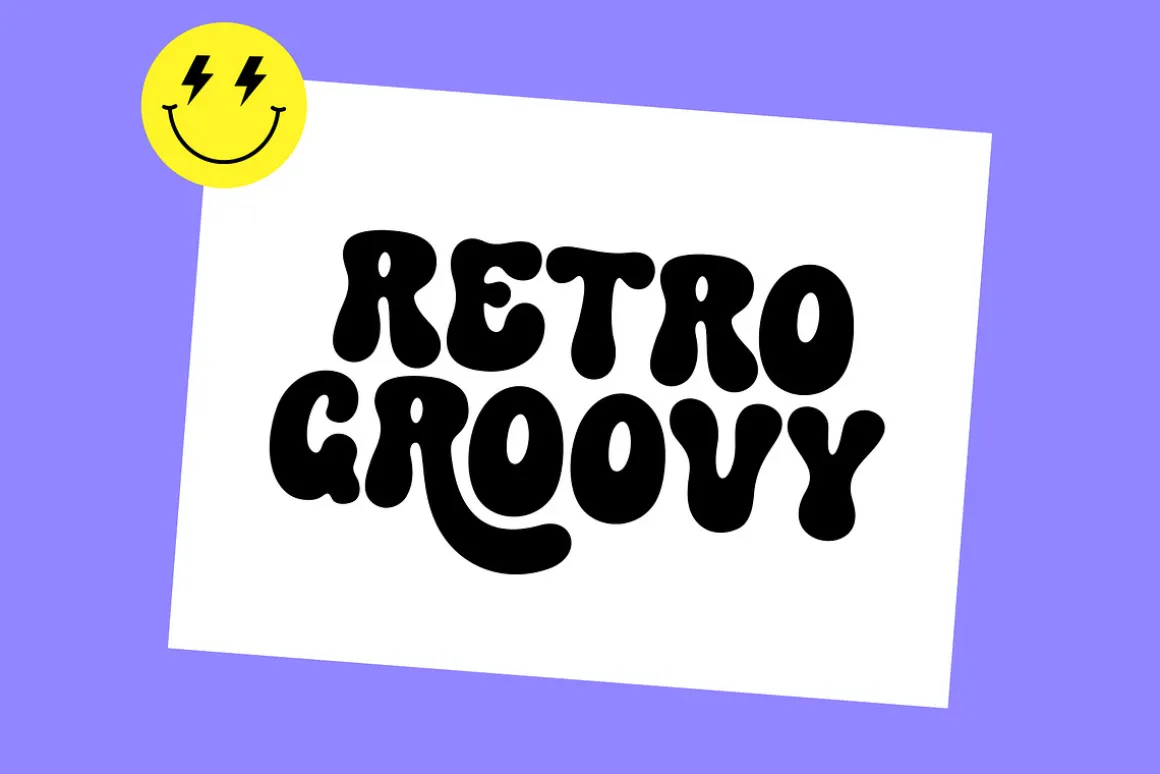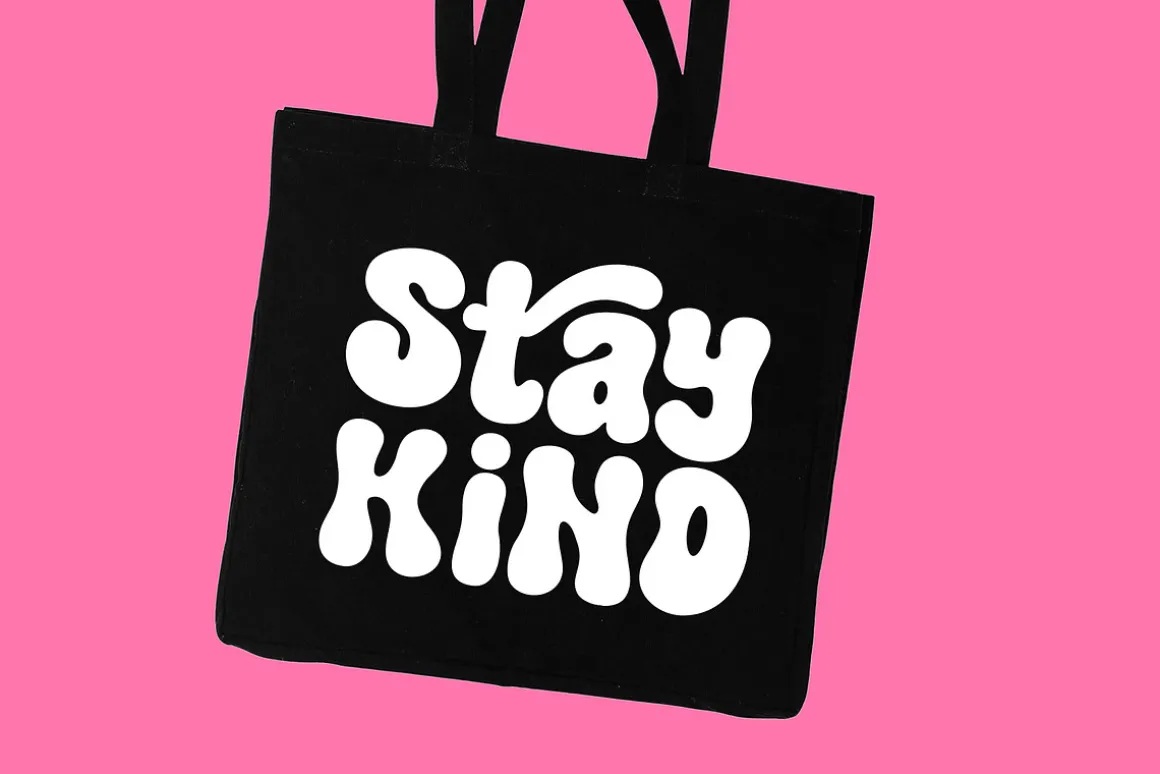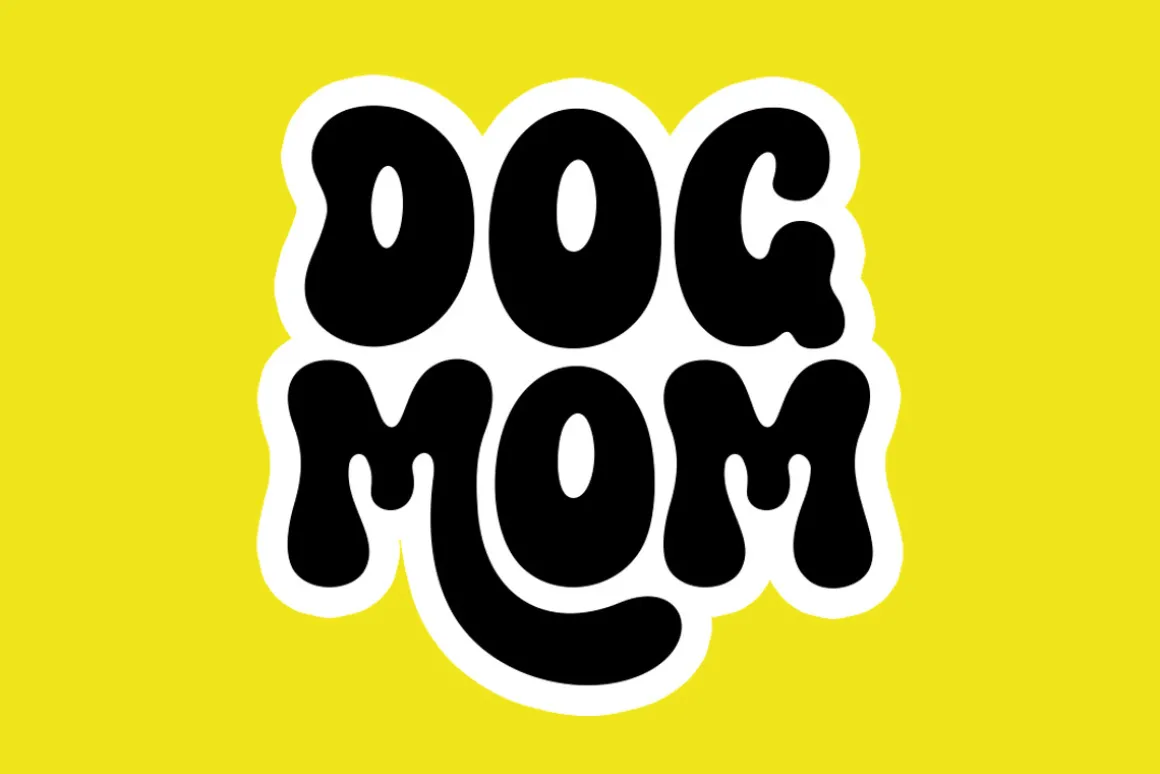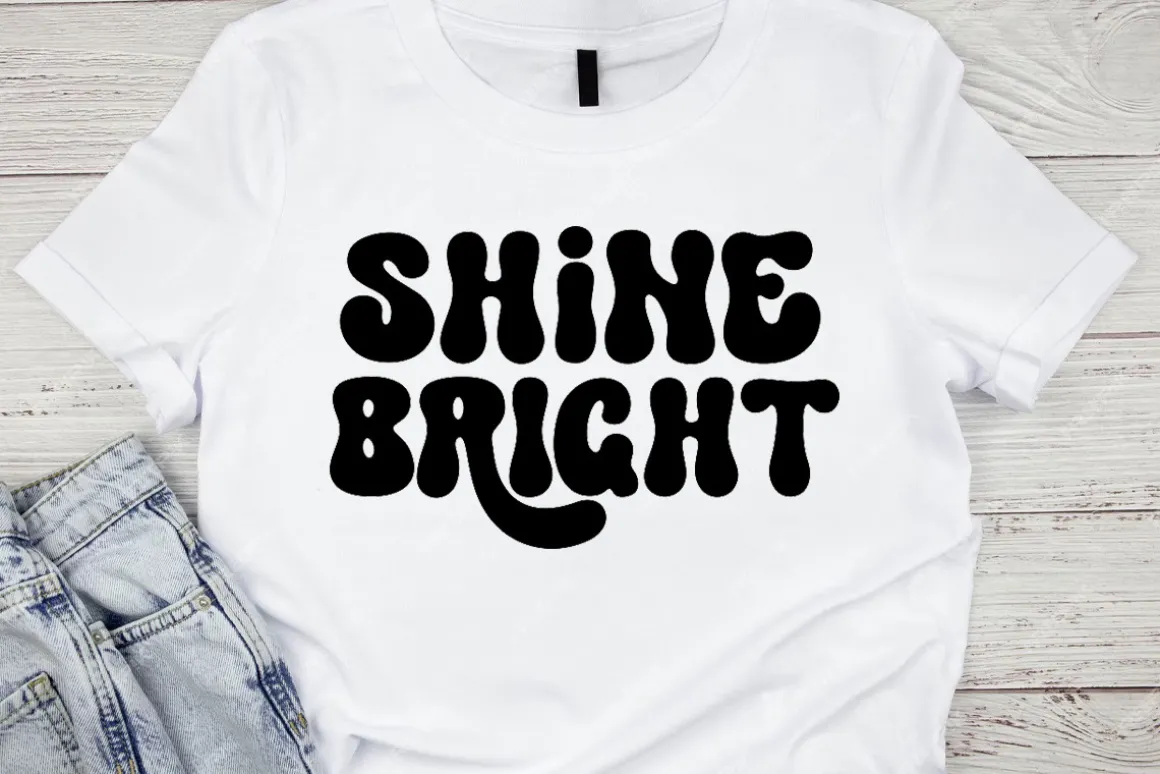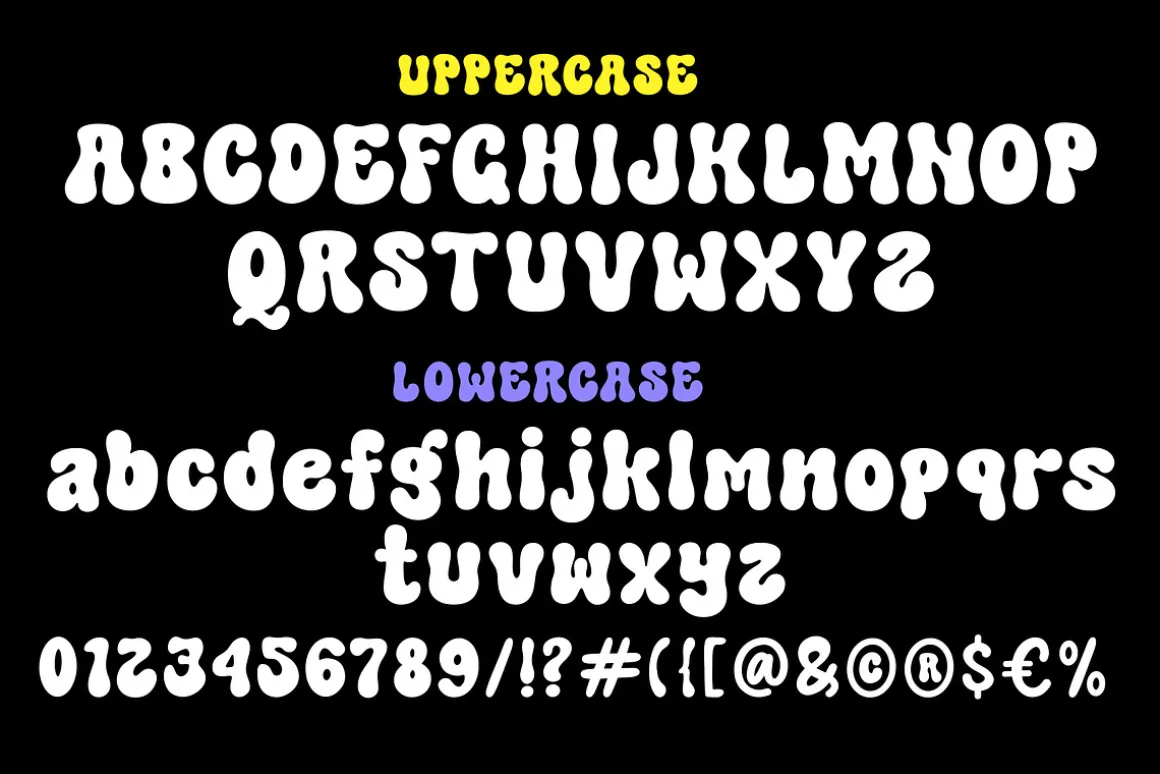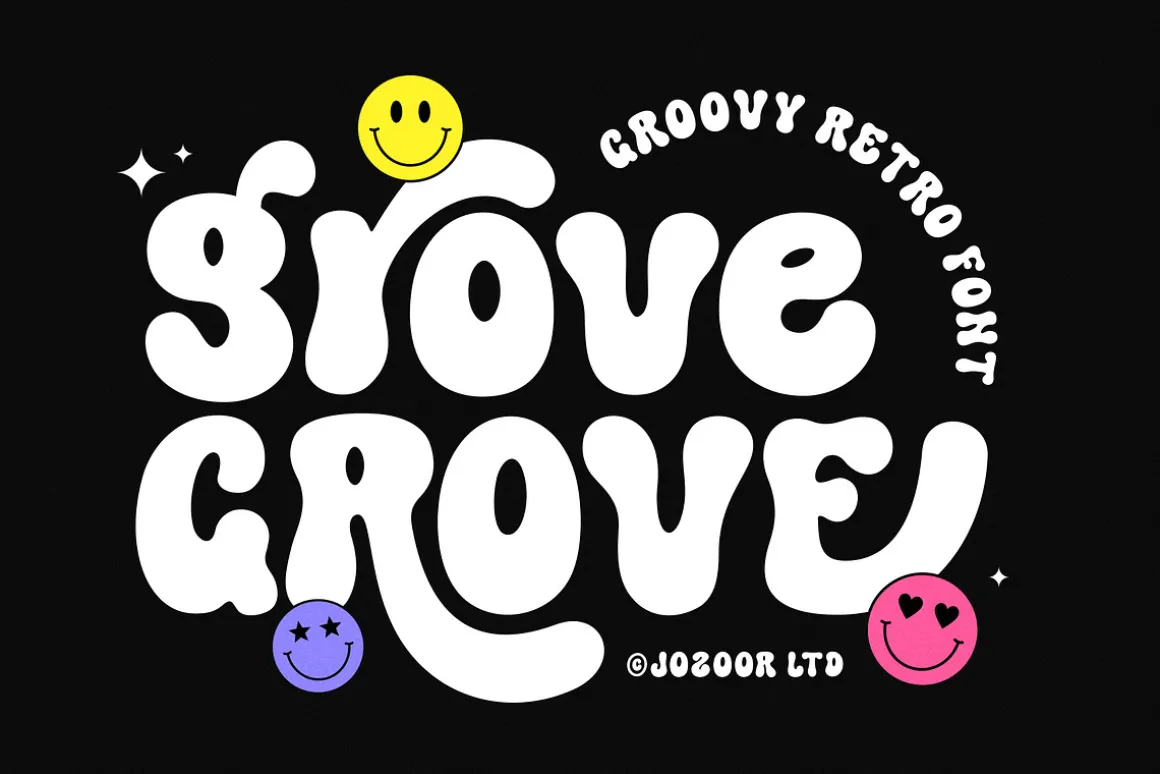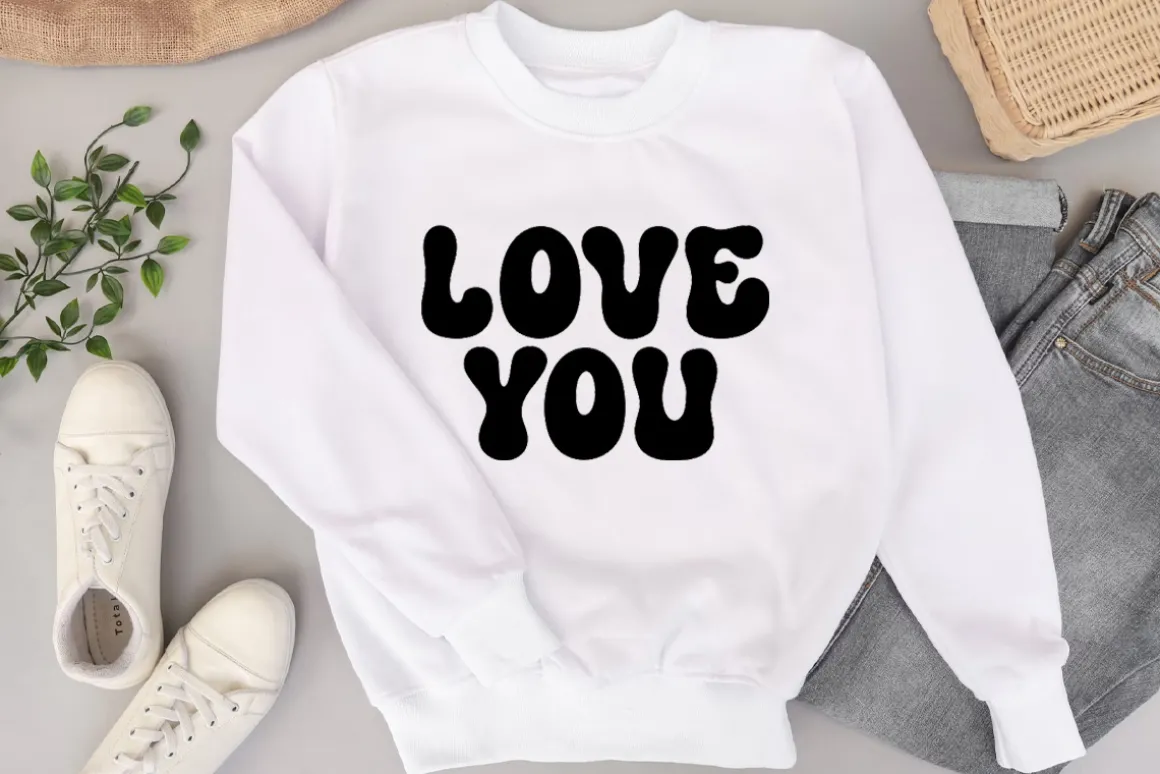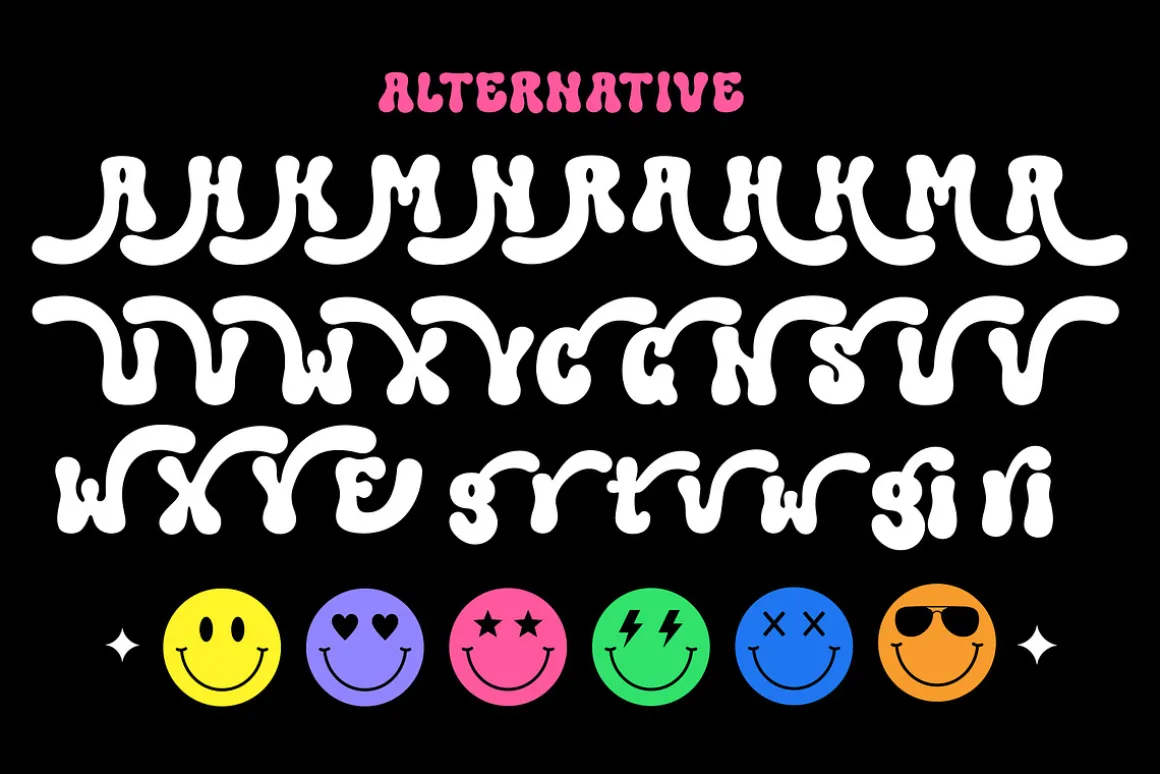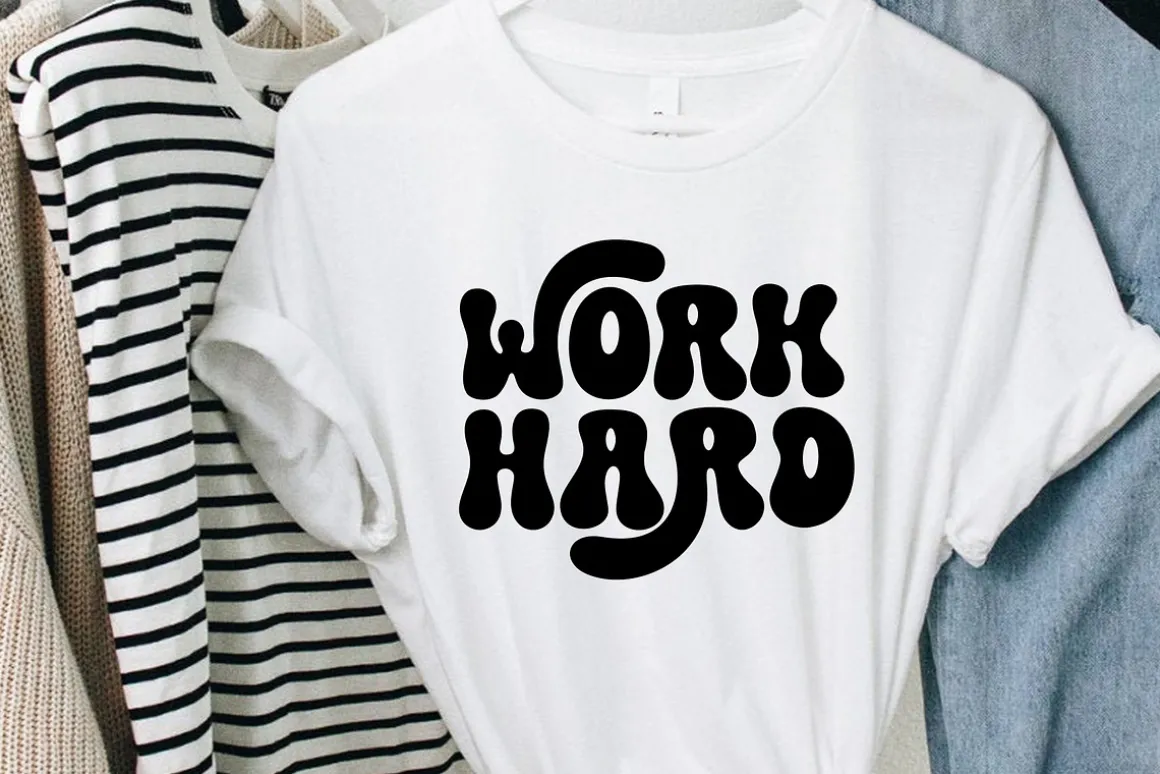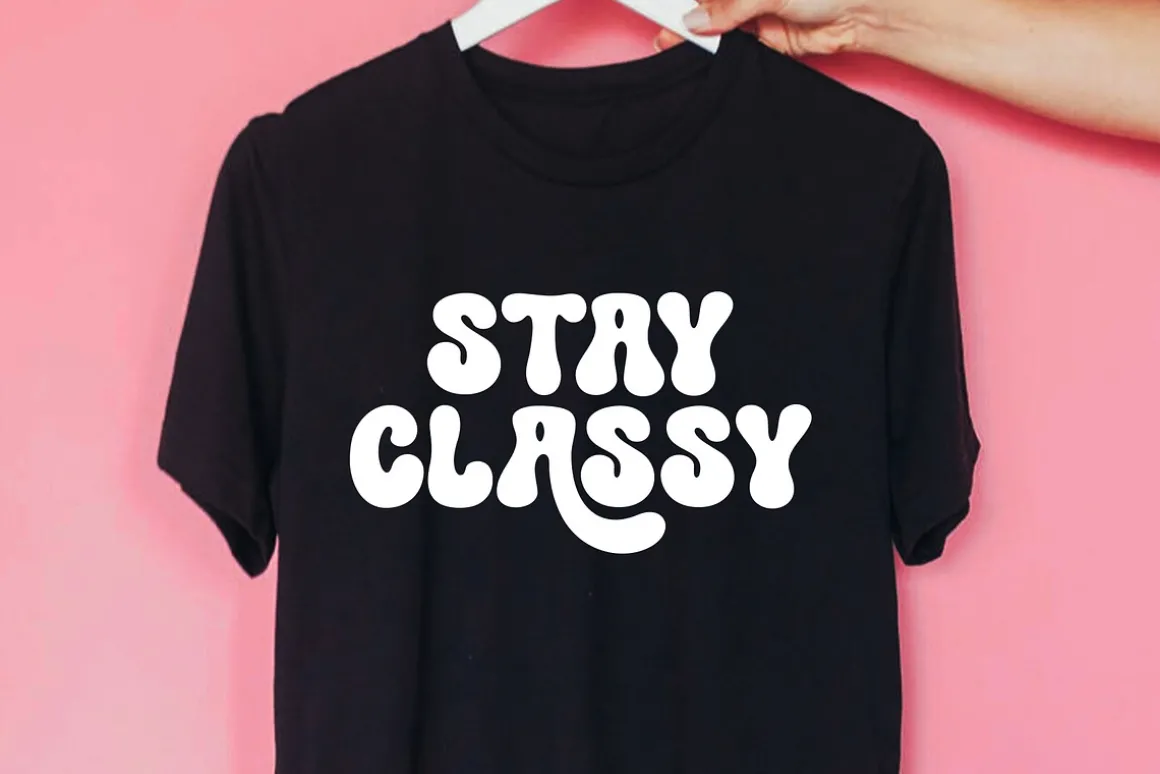
Grove is a groovy, retro, boho, 70s and fun display font. Whether you’re using it for crafts, digital design, presentations, or making greeting cards, this font has the potential to become your favorite go-to font, no matter the occasion! It is the best choice for creating eye-catching logos, branding, and quotes. Add it to your most creative ideas, and notice how it makes them come alive!